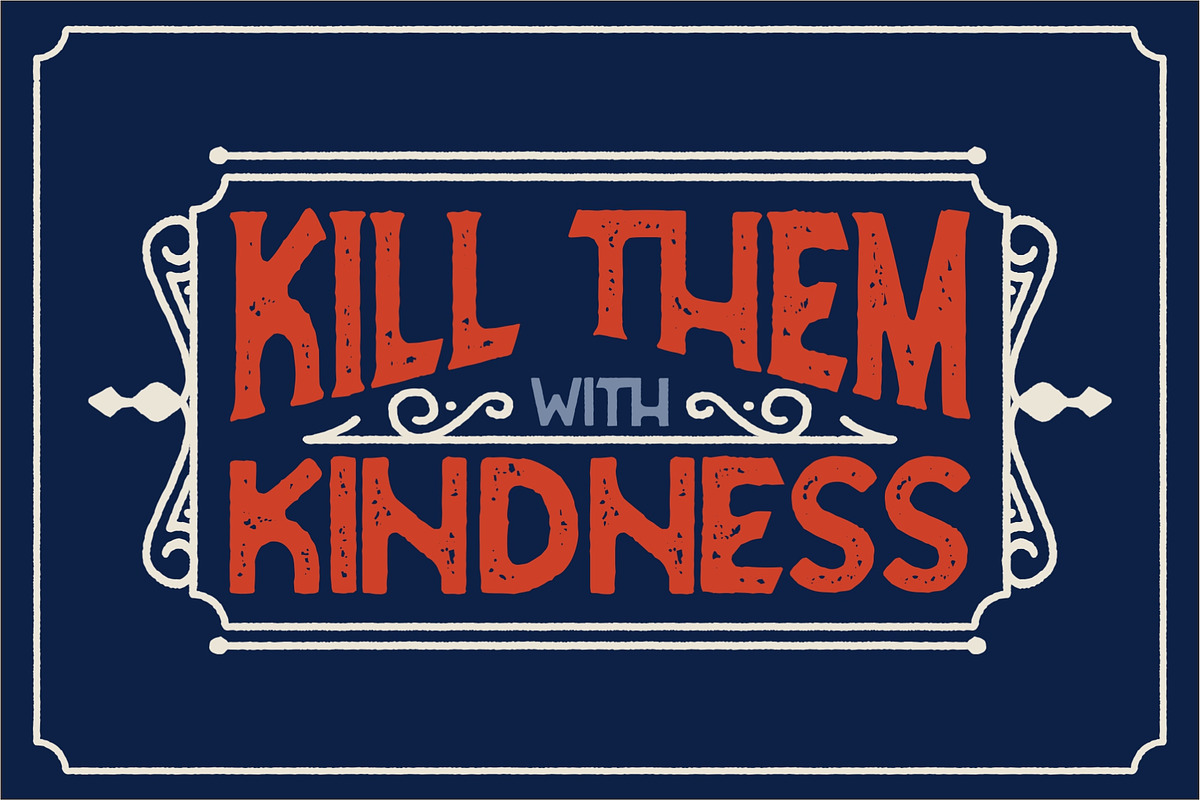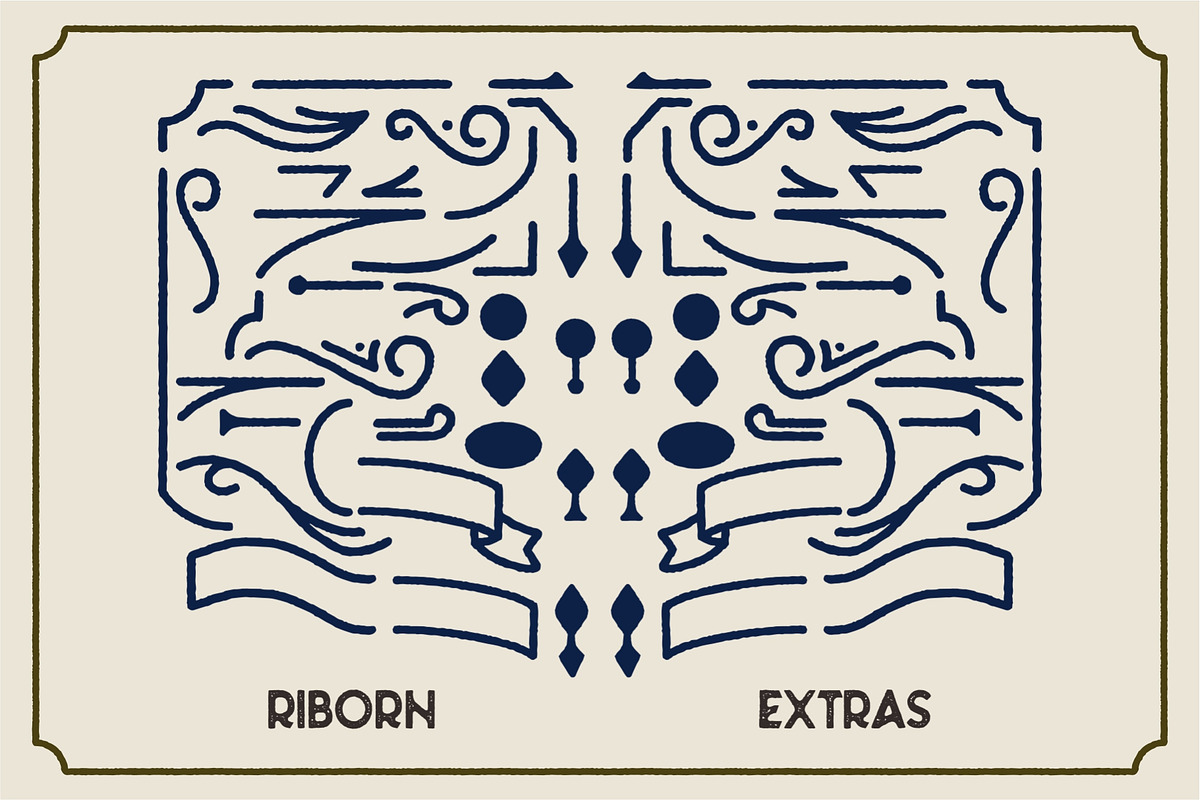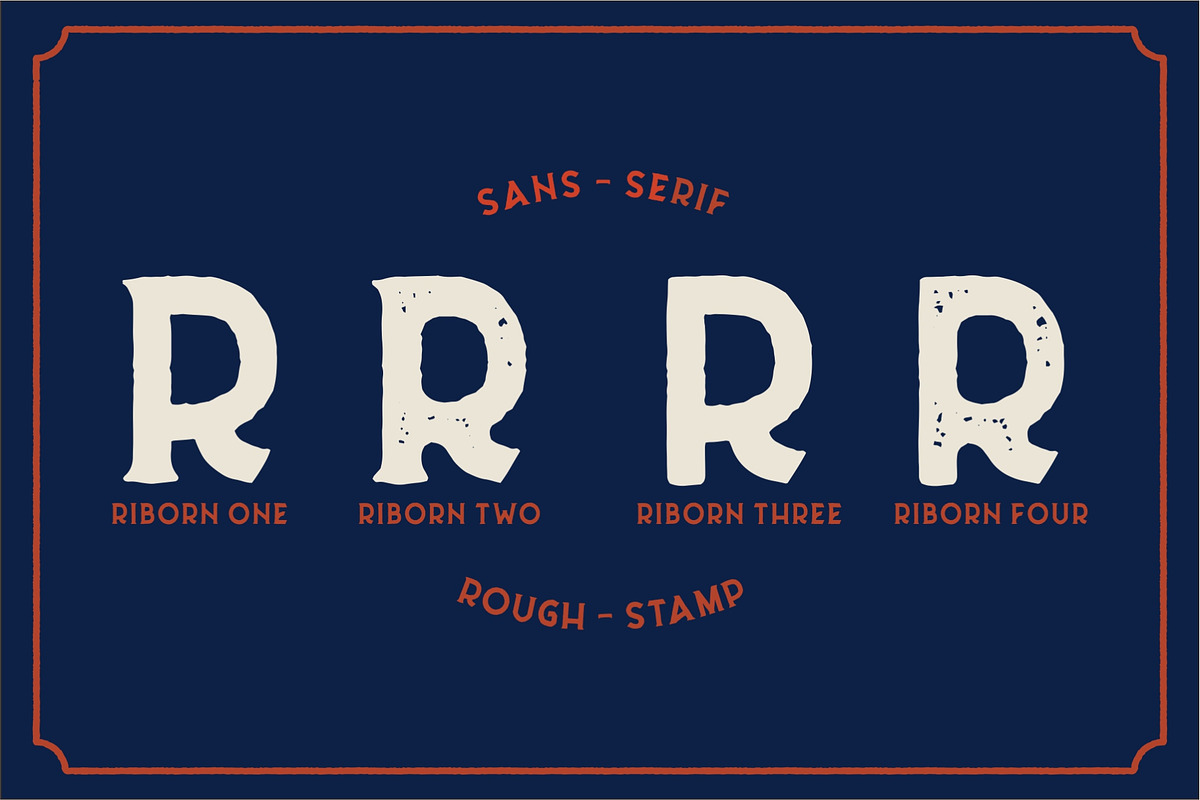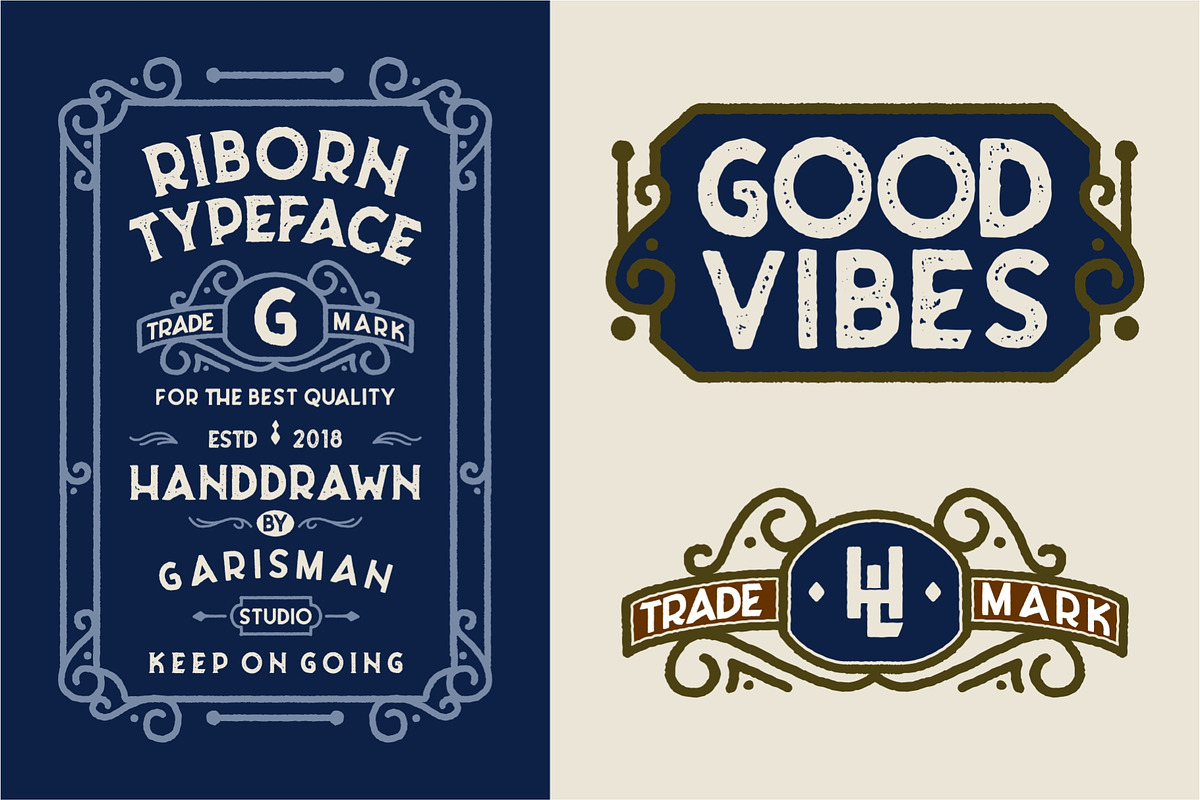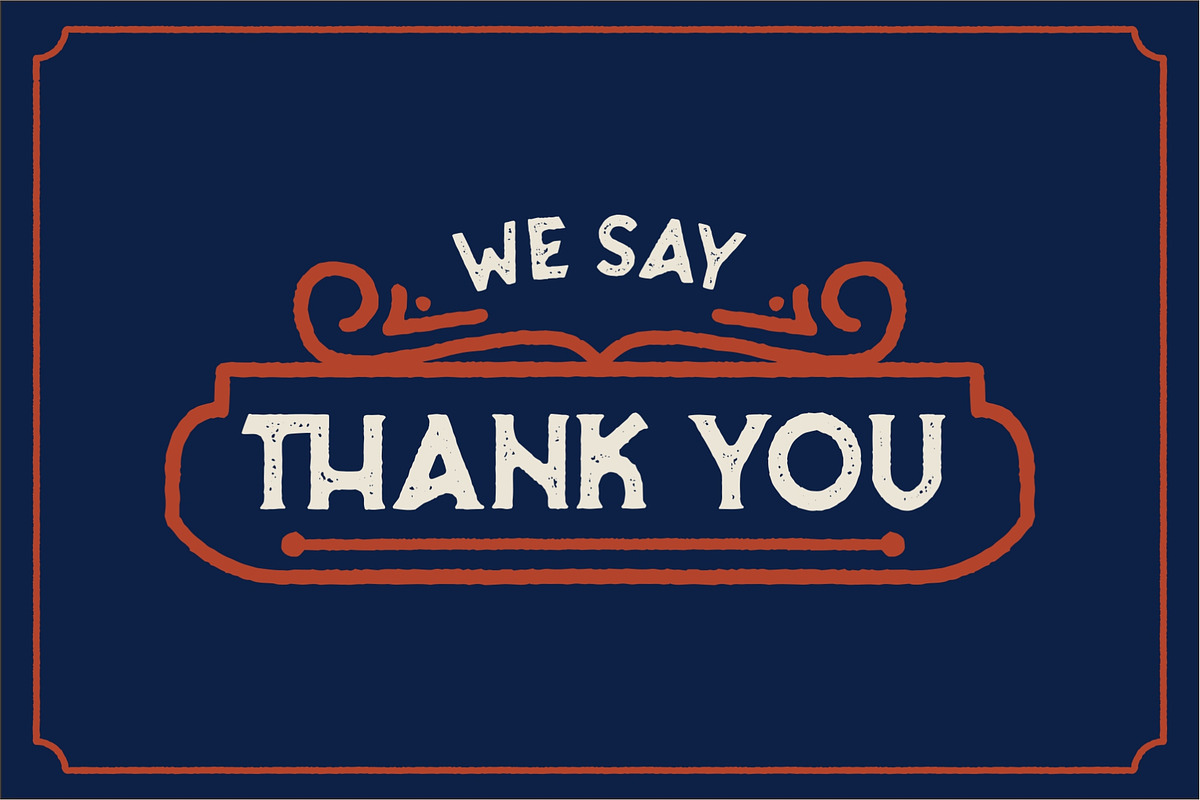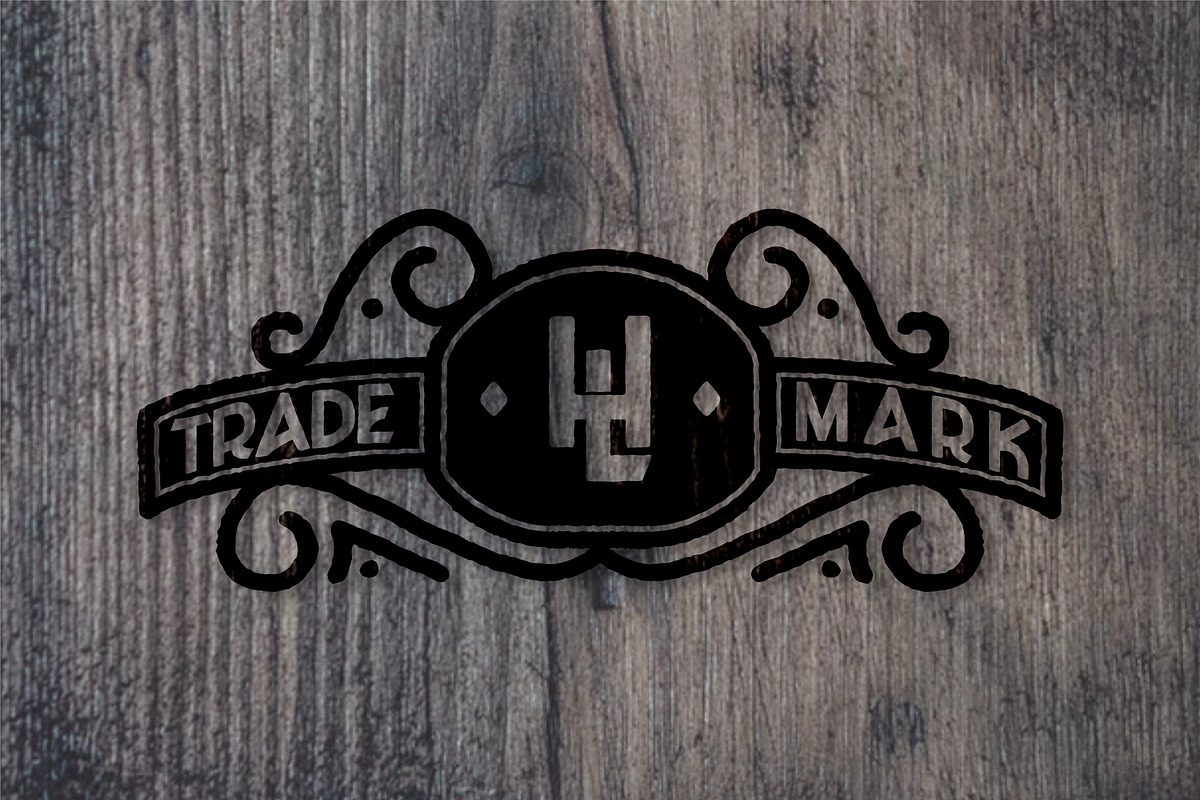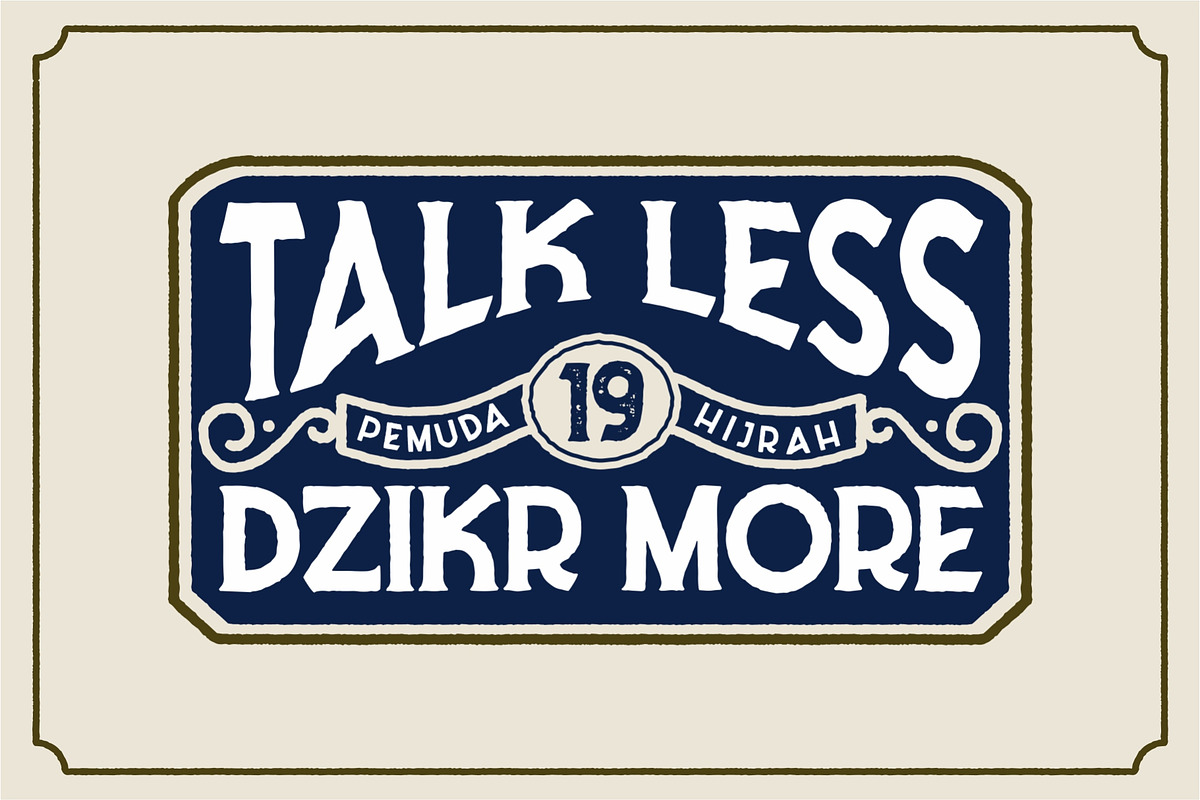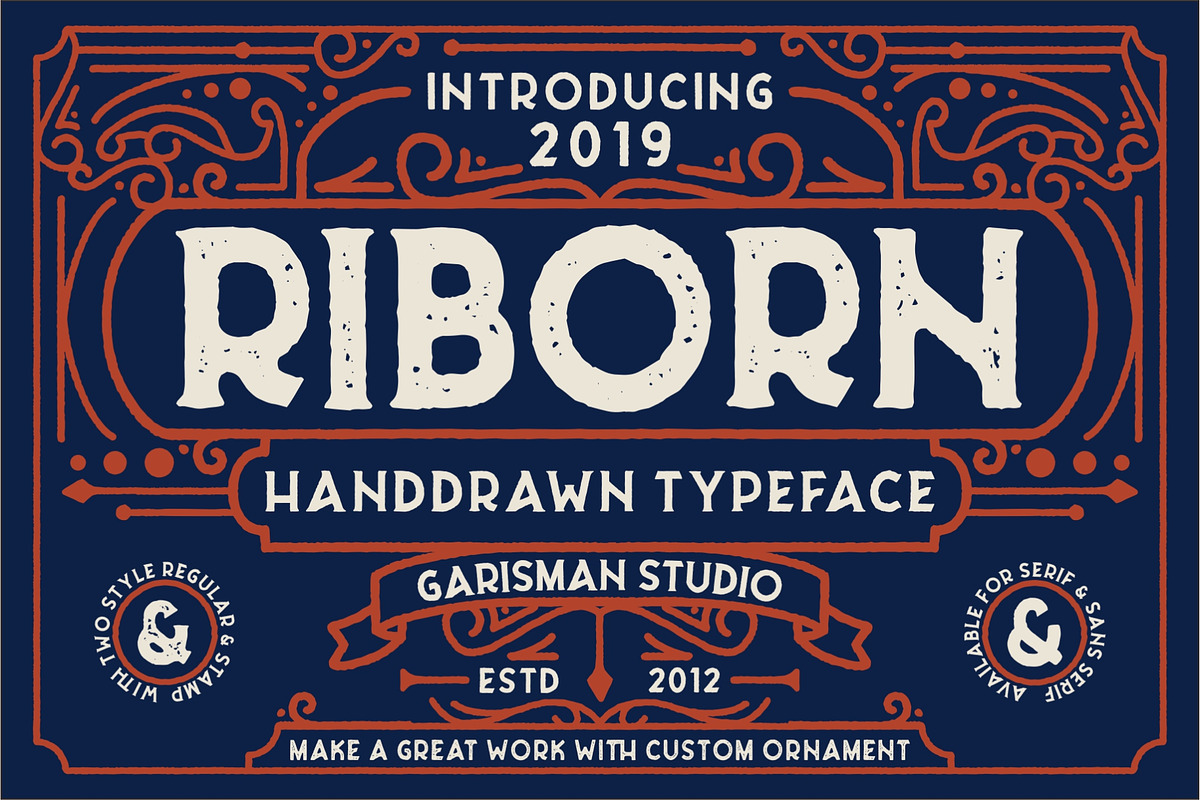
Riborn - Stamp Typeface
Rebirth begins with light streaks that form a vintage style with a touch of rough and stamp. RIBORN with 4 fonts in number, as "ribs" in your design work, and able to beautify also strengthen your work in the form of type logos, typography, handlettering, packaging, t-shirts, labels, and much more.
Equipped with "RIBORN EXTRAS (ORNAMENT)" as a beautiful ornament and has a classic and minimalist impression.